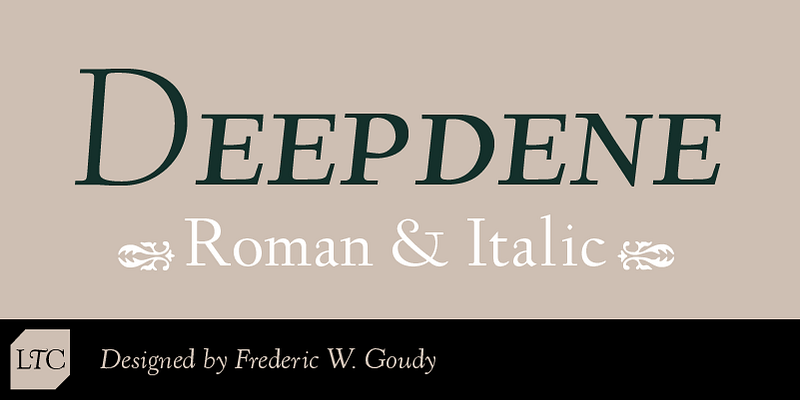
LTC Deepdene Pro Font Free Download is an elegant serif typeface that blends classic influences with modern refinements, making it ideal for high-end branding, editorial design, luxury packaging, and professional publications. Featuring well-balanced proportions and a timeless design, this font conveys sophistication and clarity.
LTC Deepdene Pro Font Free Download offers a perfect balance between traditional and contemporary letterforms. Its clean lines, classic serifs, and high legibility ensure it works well in both large and small sizes. Whether you're creating refined headings, body text, or detailed editorial layouts, this font maintains a polished, professional look.
Perfect for brands looking for timeless elegance, it pairs beautifully with modern sans-serif typefaces or other classic fonts to create balanced, visually appealing compositions.